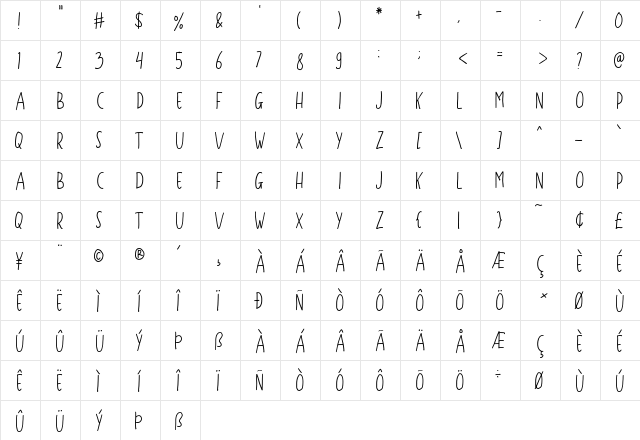
Gustisans Regular
| Designer | Gustian Agung Asprilla |
Design Context for Gustisans Typeface
Gustisans is a composed and adaptable typeface that performs quietly and consistently across a wide range of design contexts.